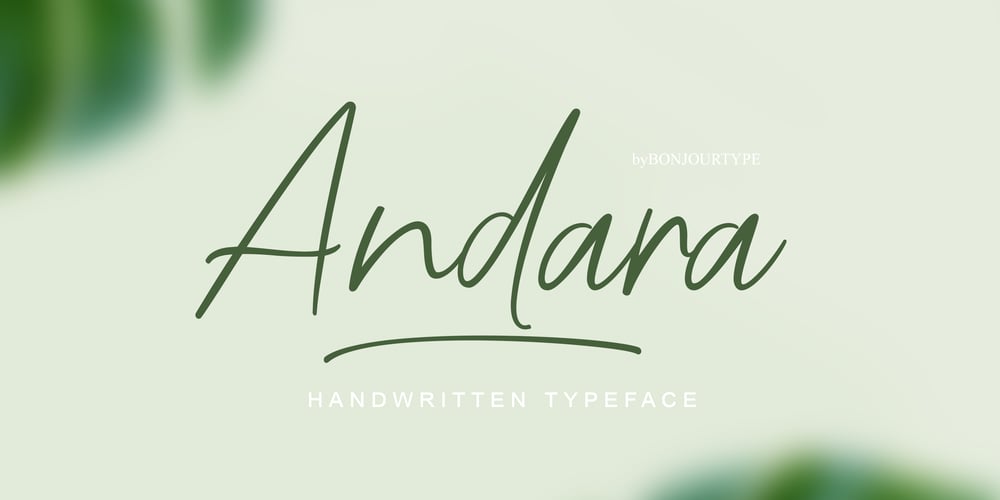
Andara Font Family was designed by Rachma and published by BonjourType. Andara contains 1 styles and family package options. ‘Andara’ is a handwritten font. We created this font for any modern branding brand.Unique and natural hand touch gives a different impression, this can make attention to take a closer look at your brand.Some agencies like this font for branding modern products, you can also make a large number of logos with one font as this font is suitable for use on web logos, signatures, portfolios, prints, headers, magazines, book covers, printed t-shirts, crafts, and cosmetic packaging.Hope this is a font worthy of your collection. Thank you,